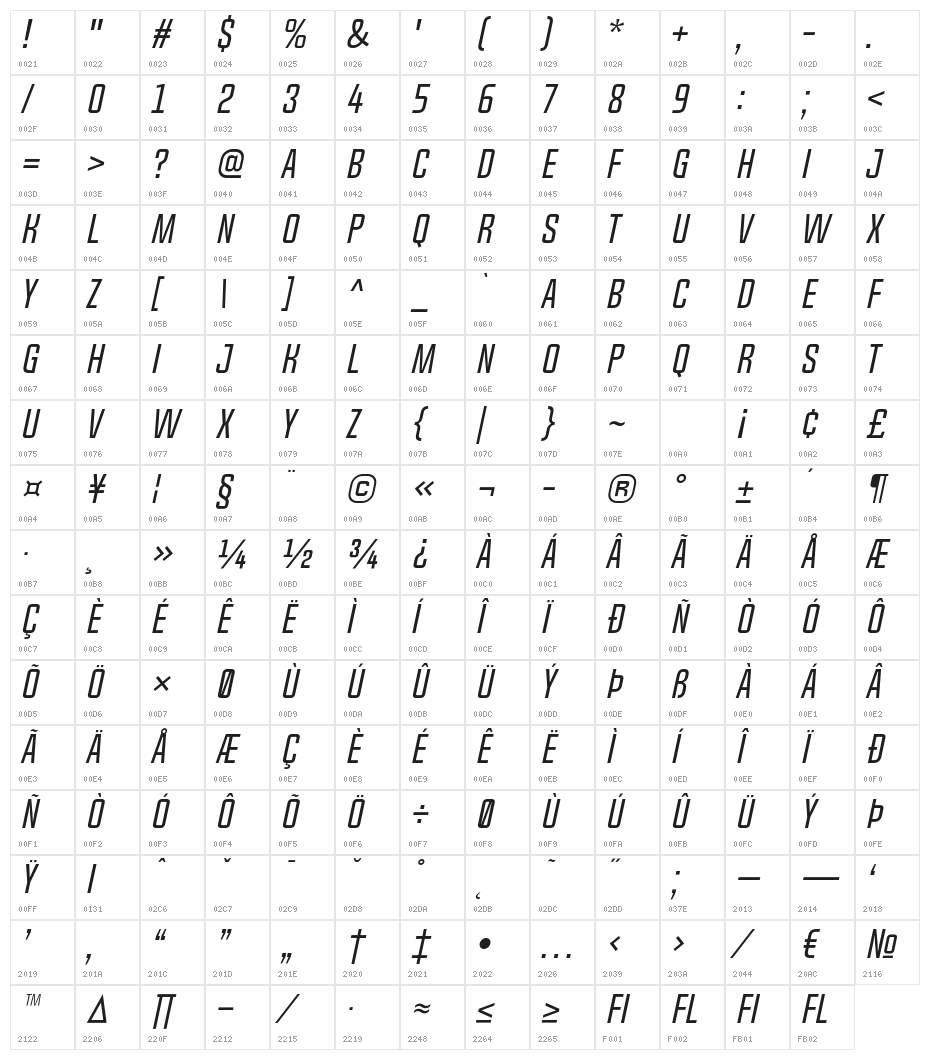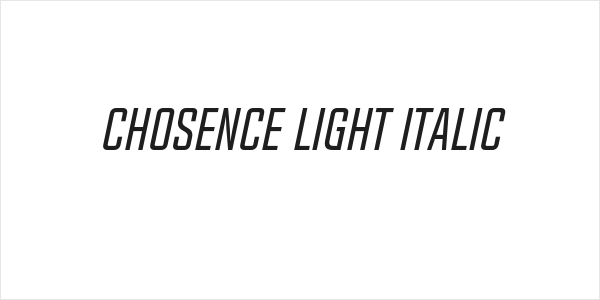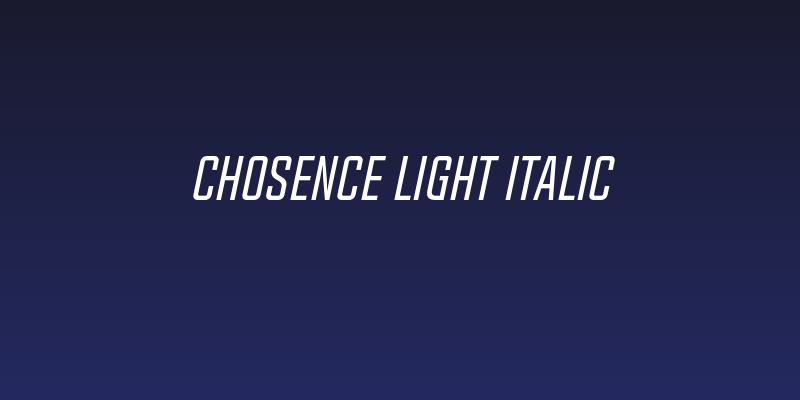
Chosence Light Italic Font
Chosence Light Italic Description
This font features a sleek, modern design with a distinct italic slant, giving it a dynamic and forward-moving appearance. The characters are elongated and slightly condensed, creating a streamlined look that is both elegant and contemporary. The strokes are consistent in weight, contributing to a clean and uniform aesthetic. The font's design is versatile, making it suitable for a variety of applications where a modern and stylish impression is desired. Its italic nature adds a sense of motion and energy, making it ideal for projects that require a touch of sophistication and flair.
| Use Case | Headlines, Logos, Advertising |
| Proposed Projects | Ideal for branding, advertising, and editorial design projects where a modern and stylish look is desired. |